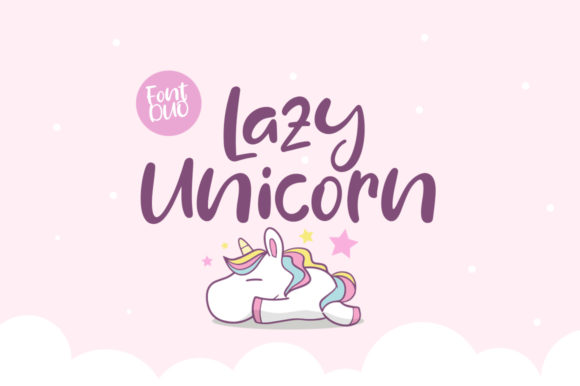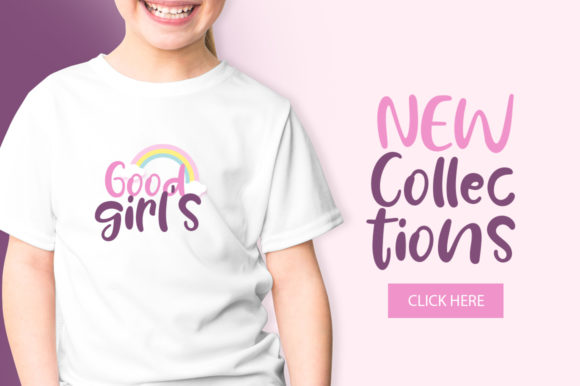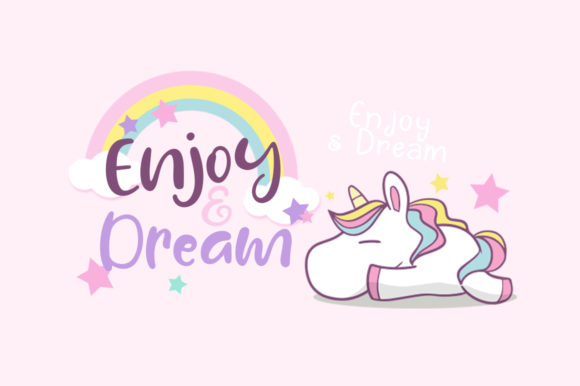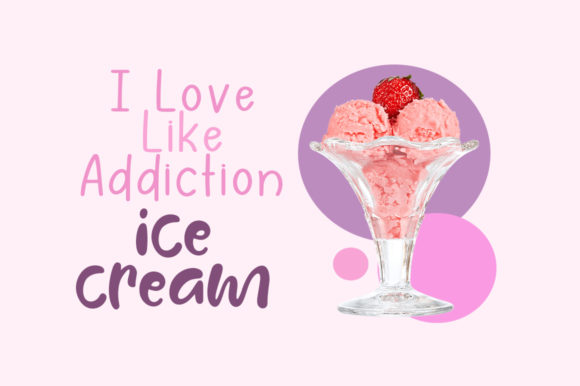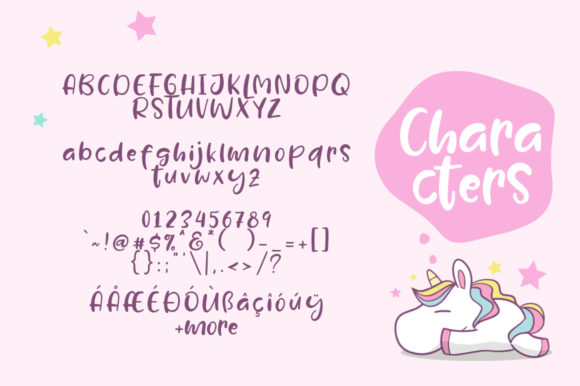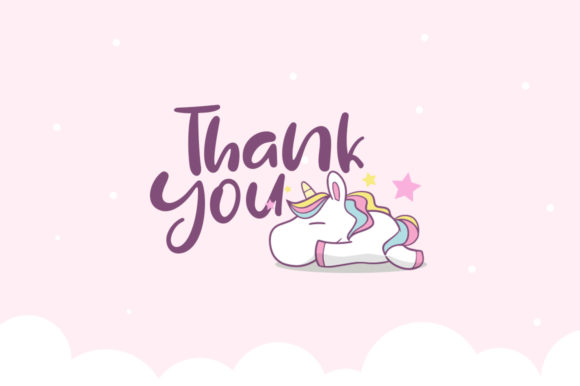
HomeScript FontsLazy Unicorn Font Script Fonts Lazy Unicorn Font FacebookXPinterestWhatsApp Lazy Unicorn Font Poster 2 Lazy Unicorn Font Poster 3 Lazy Unicorn Font Poster 4 Lazy Unicorn Font Poster 5 Lazy Unicorn Font Poster 6 About Lazy Unicorn Font Lazy Unicorn is a bold script font. Its unique style is perfect for any creative design. DOWNLOAD NOW People also explored Brilliance Font Italo Font Cassandra Font Flodine Garden Solid Font Hamstring Font Easterlove Font Voronesh Font The Hunter Font Chapville Font 292 0 TagsLazy Unicorn Font Previous articleGisele FontNext articleHazel Clouds Font LEAVE A REPLY Cancel reply Comment: Please enter your comment! Name:* Please enter your name here Email:* You have entered an incorrect email address! Please enter your email address here Website: Save my name, email, and website in this browser for the next time I comment. Personal Use Free Built Tilting Personal Use Free Read more about this font Cuttie Personal Use Free Read more about this font Orchid Personal Use Free Read more about this font Ciggs Personal Use Free Read more about this font BLOG Best Fonts for T-Shirt Design – Top 2025 Picks In 2025, t-shirt design has become more than just fashion—it's a form of self-expression. Whether you're... To increase your work productivity, choose the most readable fonts. Where to Buy American Fonts Online in 2024 Top 7 Google Fonts Alternatives for Faster and Privacy-Friendly Web Design (2025)